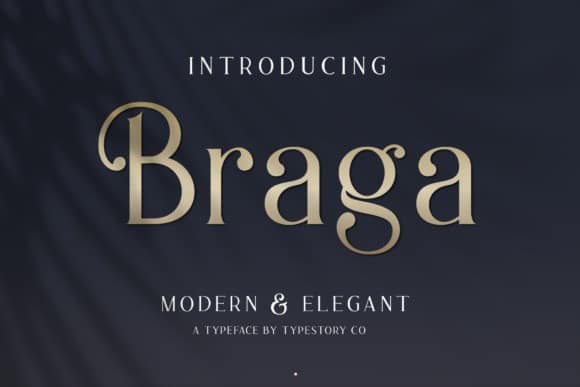
Braga Serif Font
Introducing Braga Font – A brand new serif typeface with classy curves, more alternative character, and multilingual support.
Braga Font inspired by fancy and vintage typography. Braga Font is a very versatile font. you can use this font to make perfect various design.